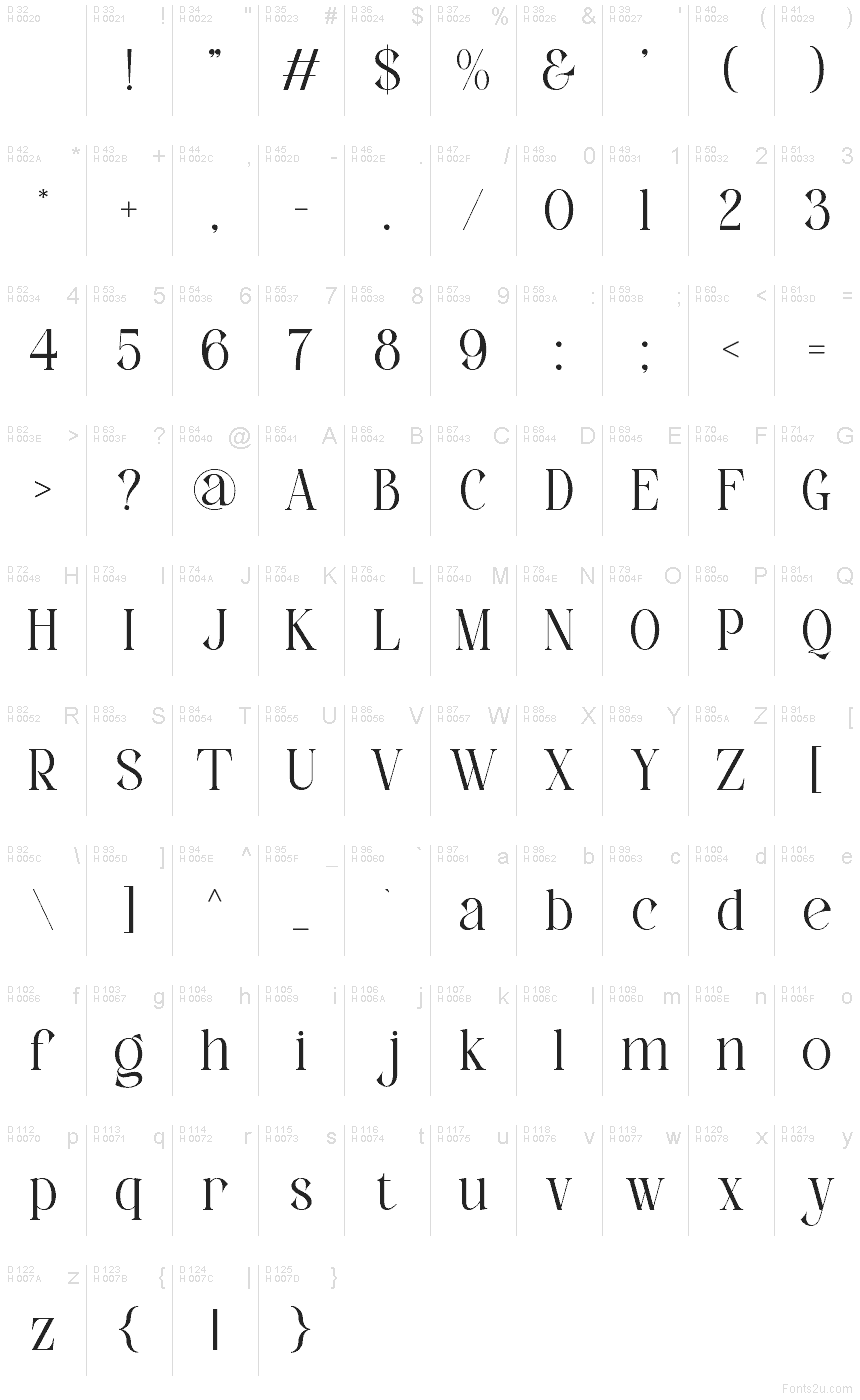
Rokcla Regular
Rokcla font by Ermedia Studio is a free high-contrast serif display font that leans into tension: razor-thin hairlines snap against inky verticals, while teardrop terminals curl like wet ink. Its blade-like serifs and sweeping curves give headlines a couture edge—elegant, but with bite. The rhythm feels precise and editorial, turning simple words into statement pieces.
Using Rokcla, you can lift fashion branding, magazine covers, cosmetics packaging, restaurant menus, book jackets, and event invitations. The spacing holds steady at large sizes, so it shines on posters and hero banners. Pair this free font with a restrained grotesque sans for body copy, or add a touch of letterspacing to let those sculpted forms breathe.